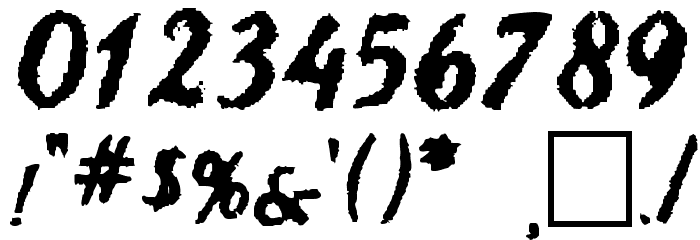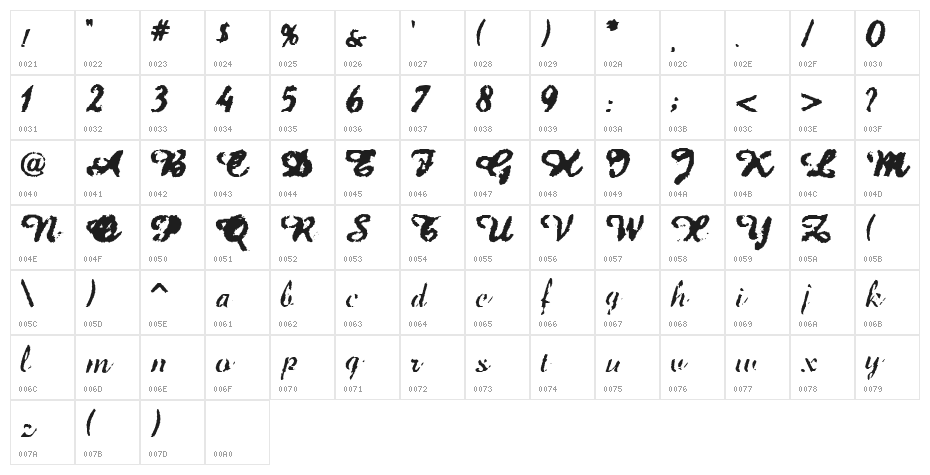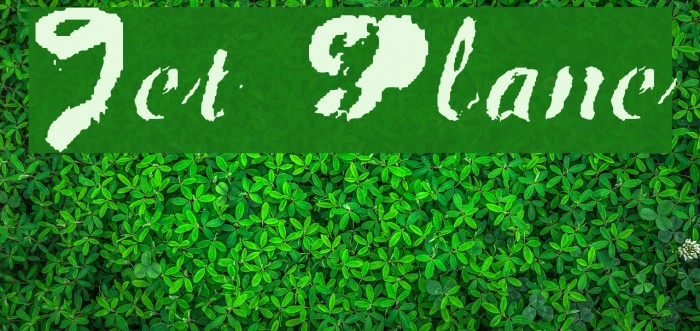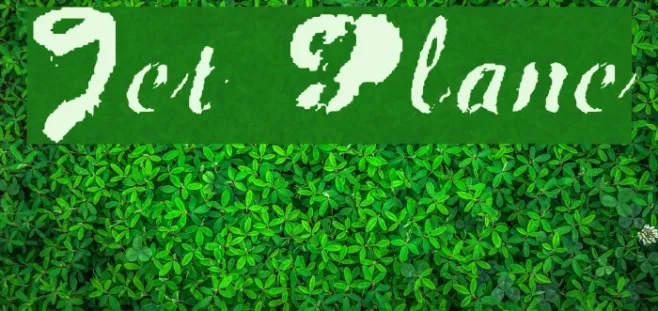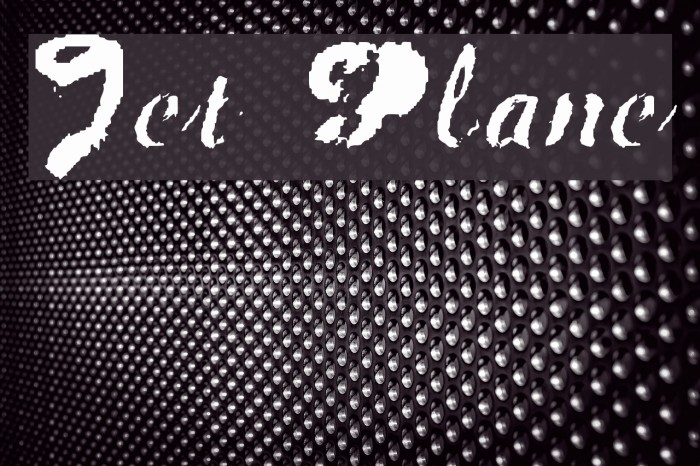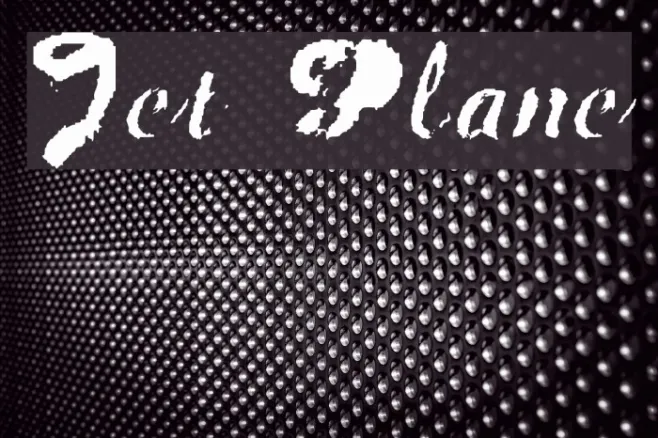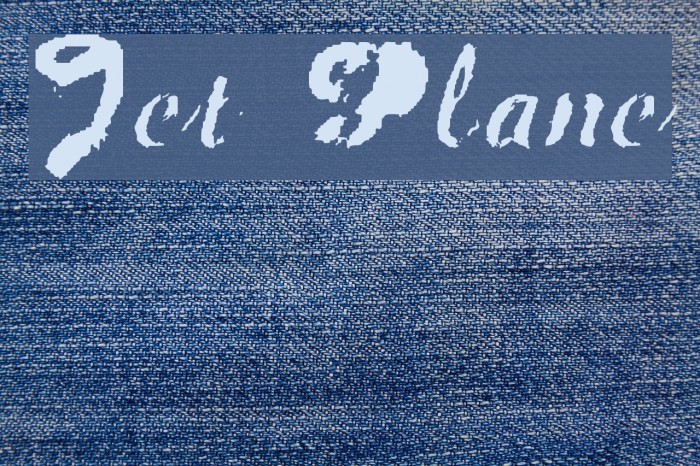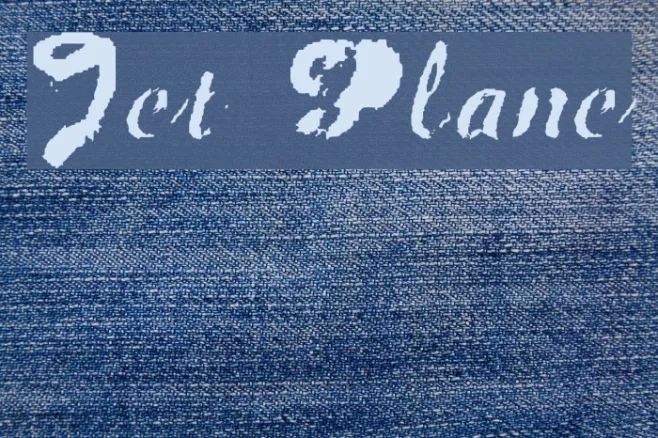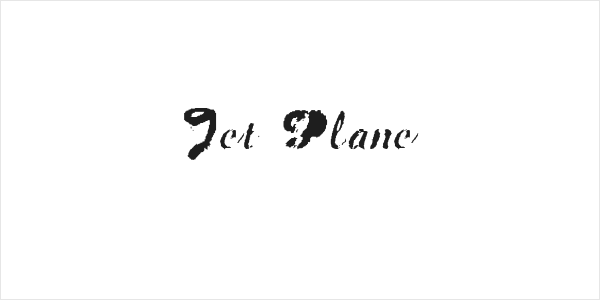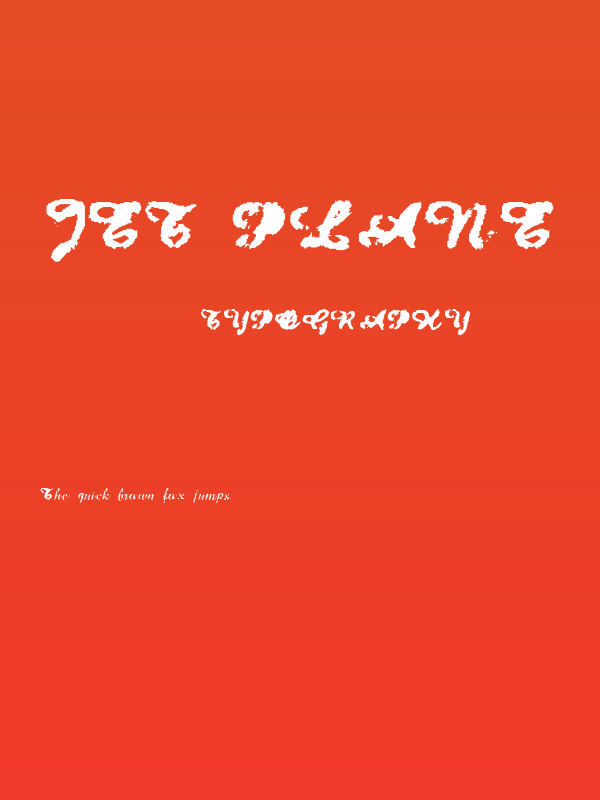
Jet Plane Font
Jet Plane Description
This font features a dynamic and expressive style, characterized by its bold, brush-like strokes that convey a sense of movement and energy. The uppercase letters are robust and slightly condensed, while the lowercase letters maintain a fluid, cursive quality. The numerals are bold and consistent with the overall style, ensuring readability while maintaining the artistic flair. Special characters are creatively integrated, adding to the font's versatility. The font's high contrast between thick and thin strokes enhances its dramatic appearance, making it suitable for impactful designs.
| Proposed Projects | Ideal for branding, poster design, and artistic projects that require a bold, expressive typeface. |